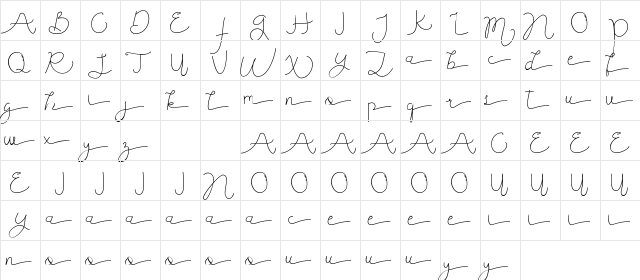
Jenoshark Feiya Demo Regular
| Foundry | Edric Studio |
| Designer | Saila Nurissalma & Suci Anita |
Design Context for Jenoshark Feiya Demo Typeface
Jenoshark Feiya Demo takes a measured approach to typography — its balanced proportions and neutral character make it a reliable workhorse for both digital and print work.